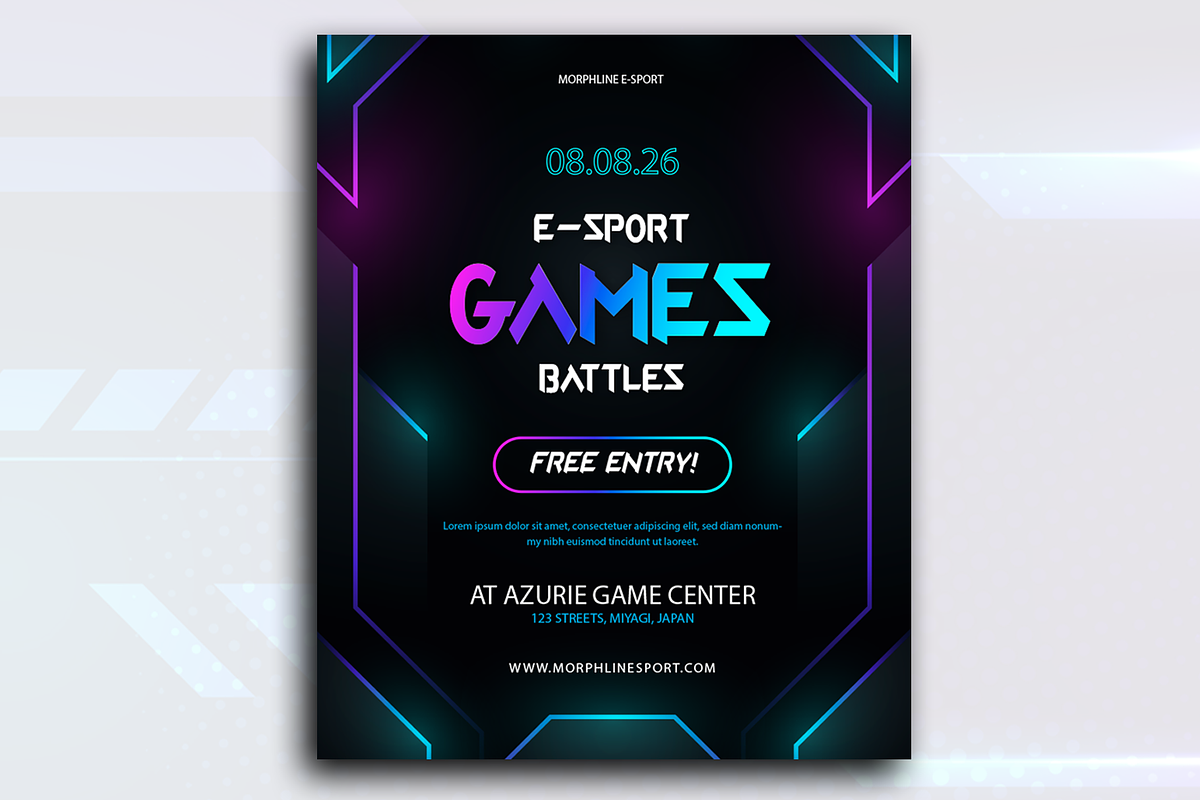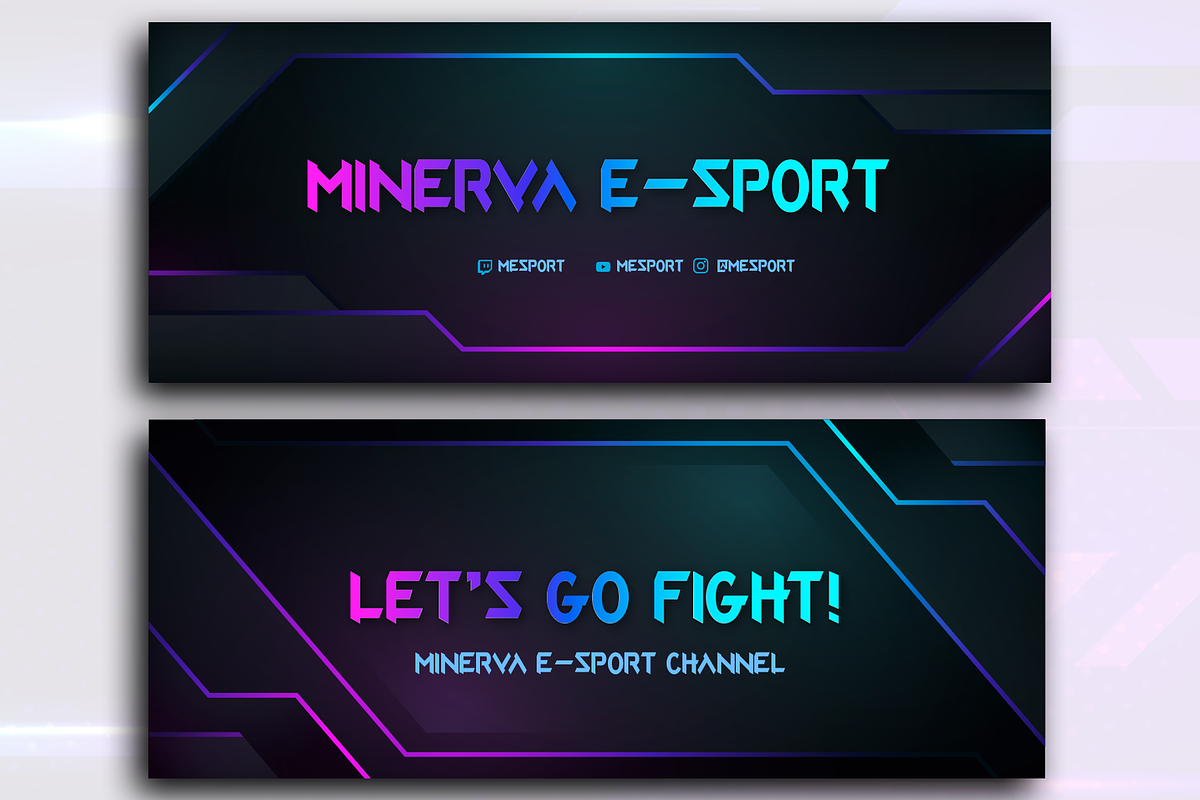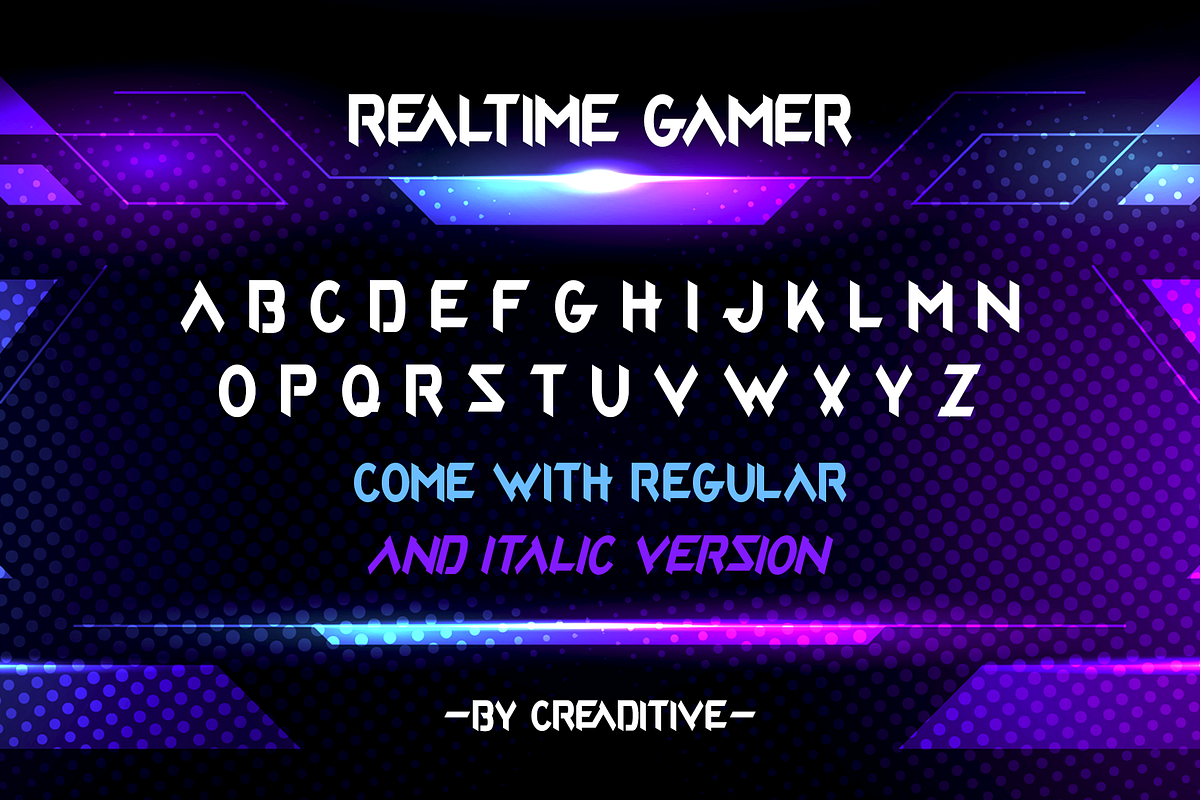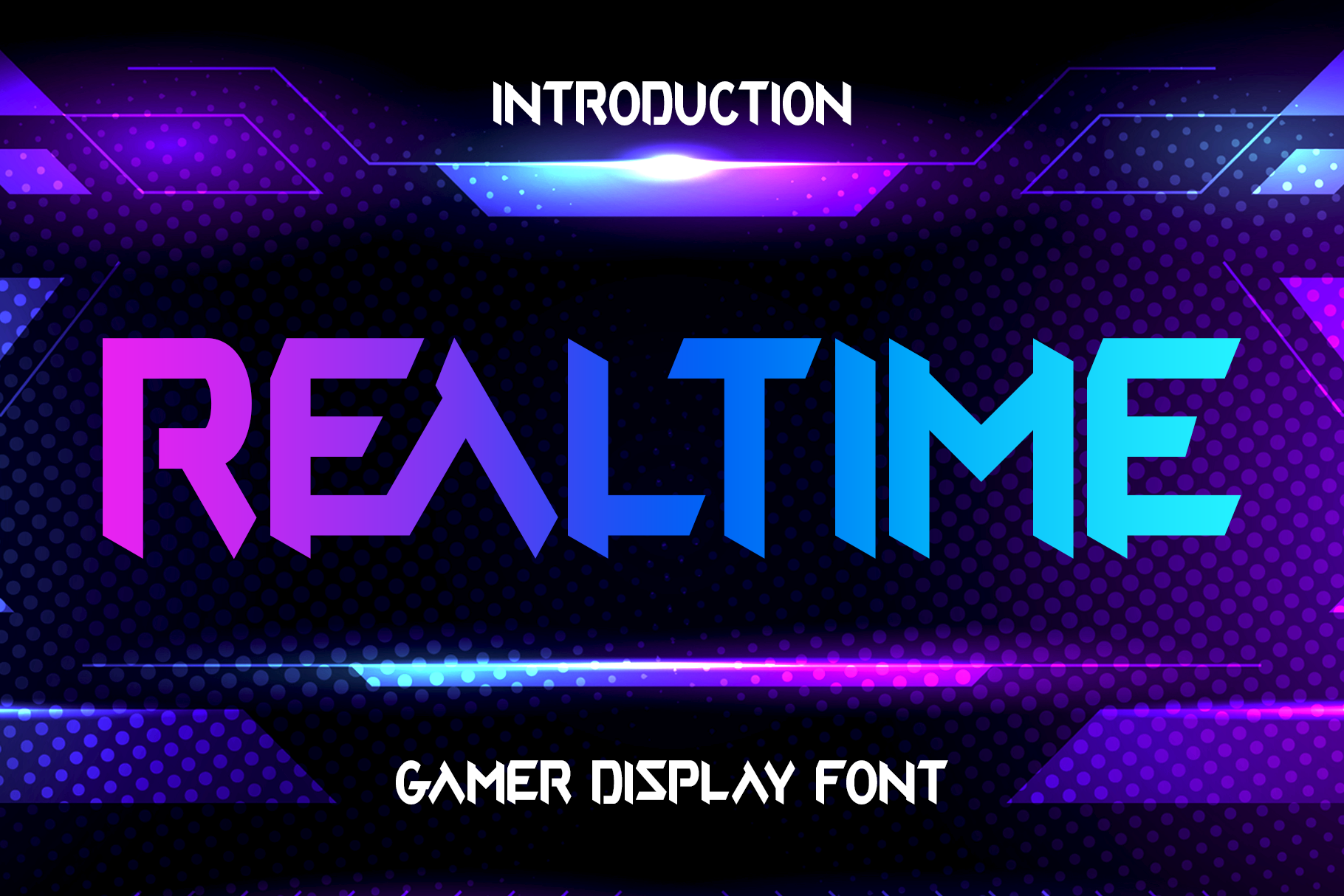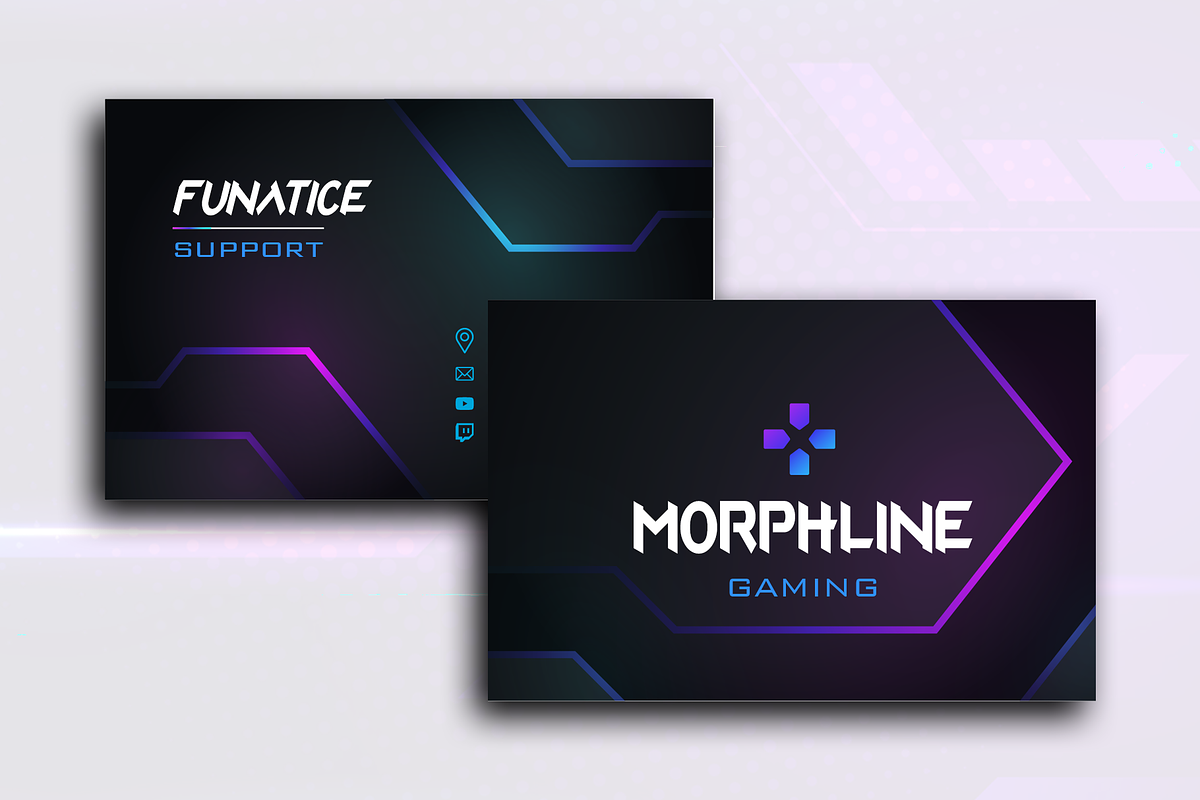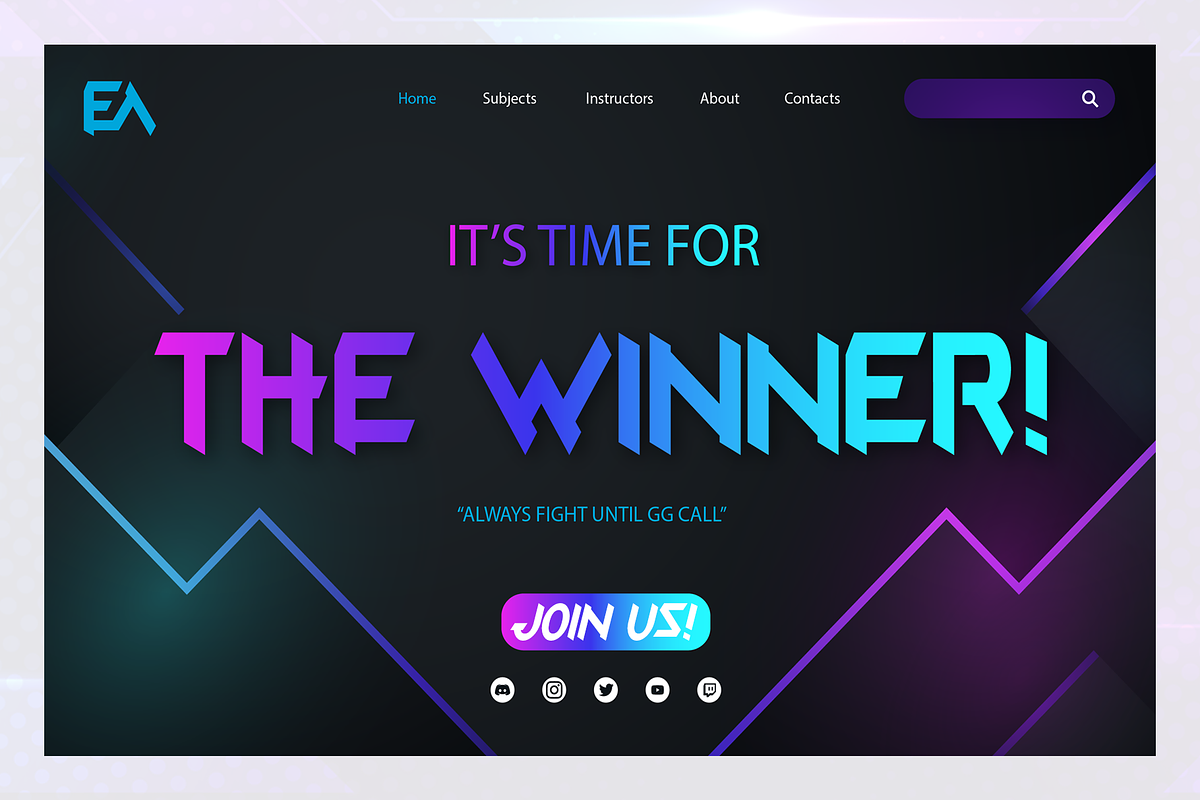
Realtime Gamer | Futuristic Typeface
Proudly Present – Realtime Gamer | Futuristic Display Typeface Created by Creaditive Design
Say hello to Realtime Gamer — a bold display font designed for the gaming world, digital environments, and tech interfaces. Built with a modern-futuristic feel, its sharp angles and geometric forms bring a cutting-edge look that stands out on any screen.
Crafted for maximum impact, Realtime Gamer comes in Regular and Italic styles — perfect for everything from e-sport posters to streaming overlays. Its all-caps lettering is strong and aggressive, making it ideal for creating titles, branding, and UI elements that scream power and precision.
Although the font itself is color-neutral, it pairs beautifully with neon effects, cyberpunk themes, and digital gradients — giving you creative freedom to customize it for your gaming aesthetic.
- Gaming Logos
- E-Sport Posters
- YouTube / Twitch Thumbnails
- Game UI Design
- Tech-Themed Flyers & Graphics